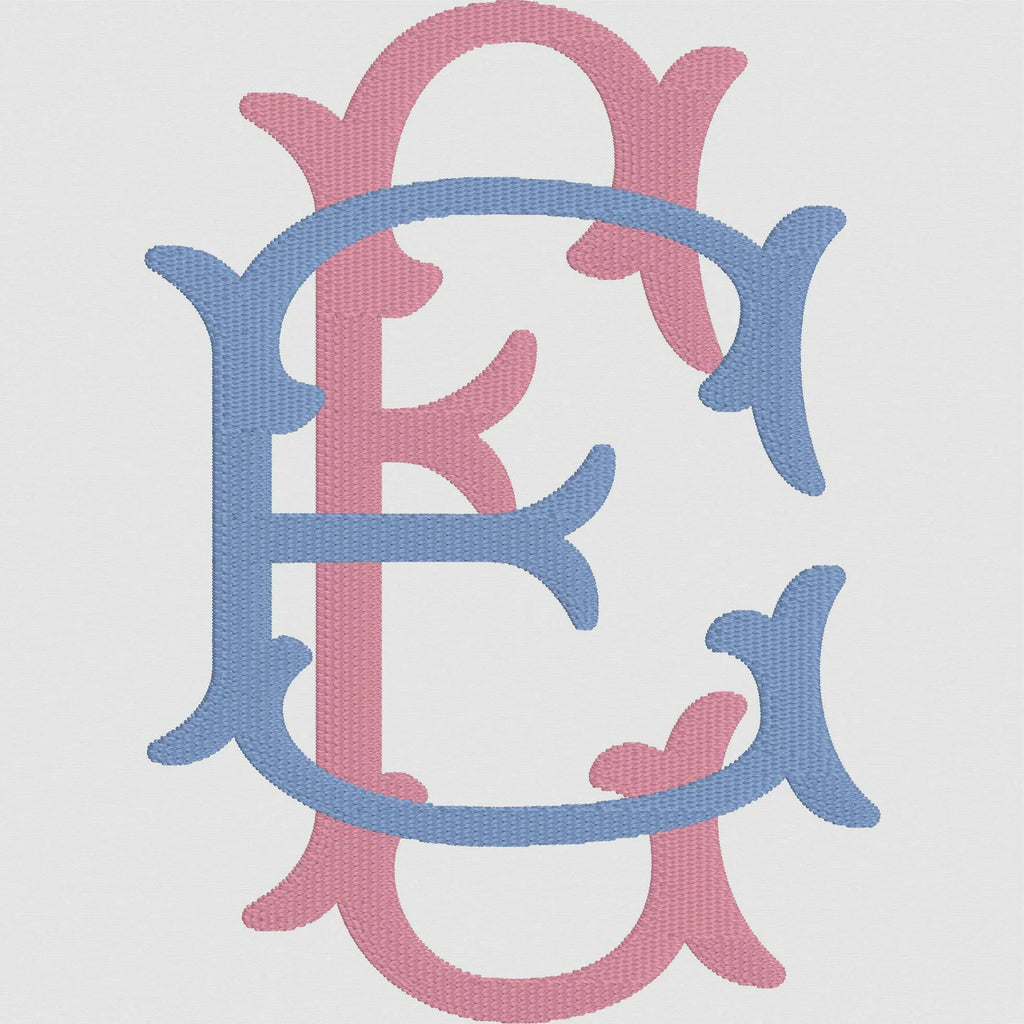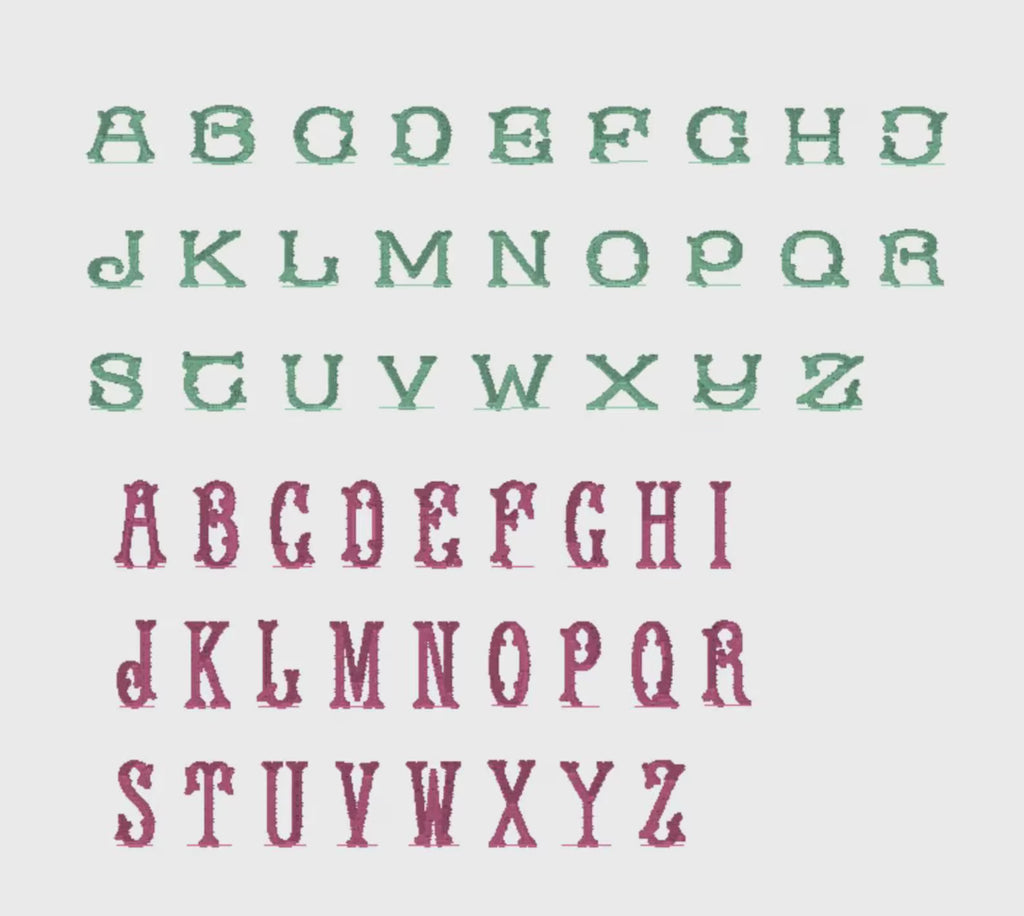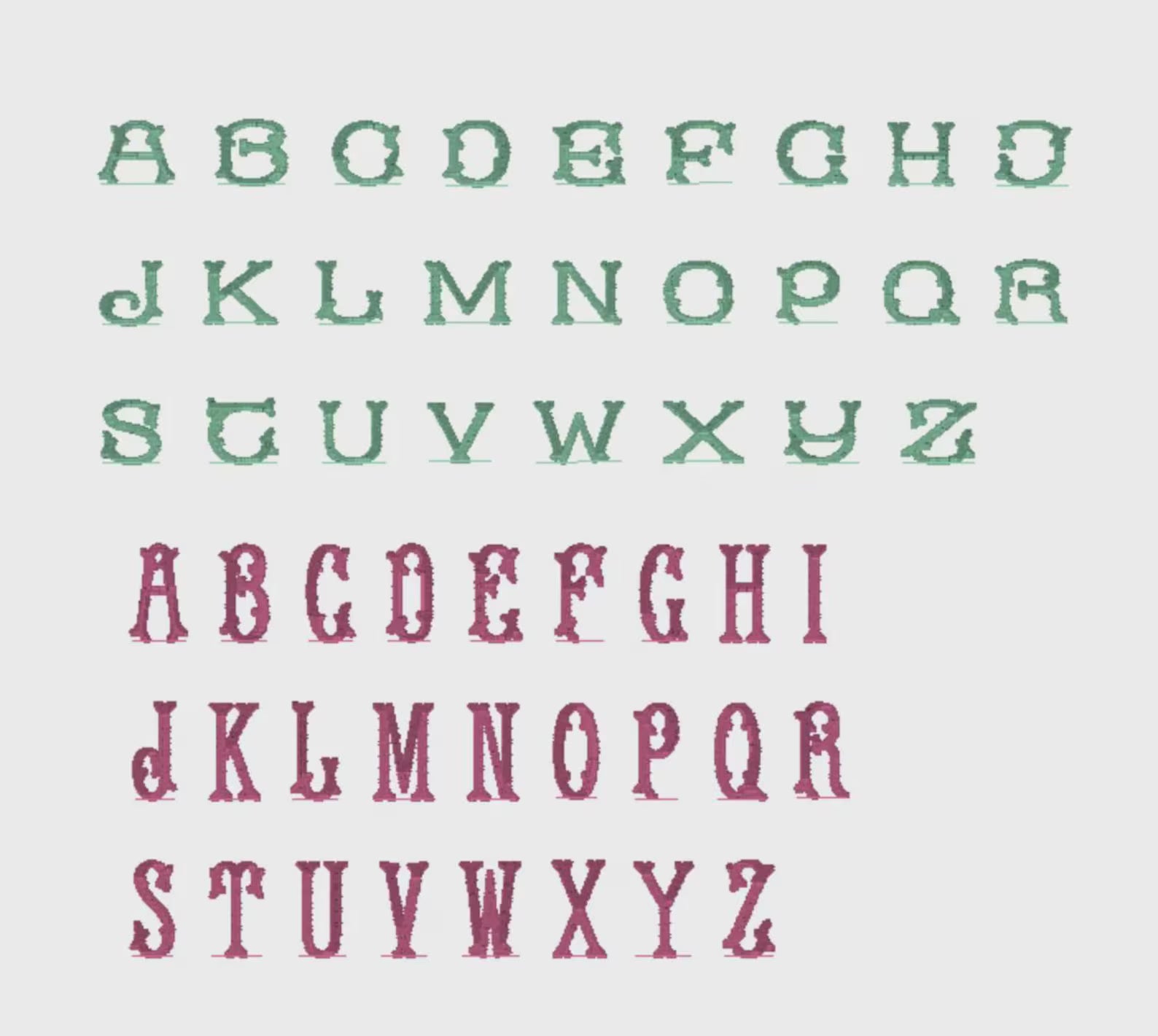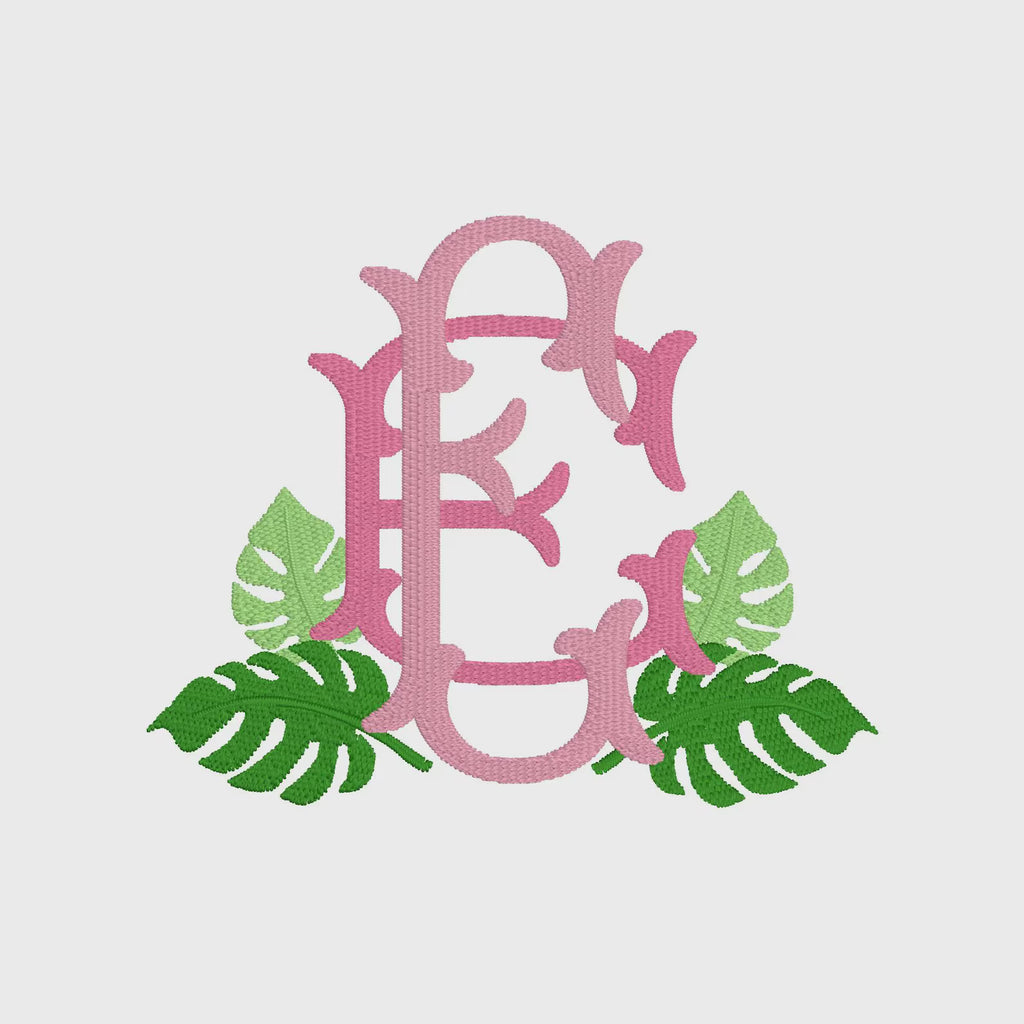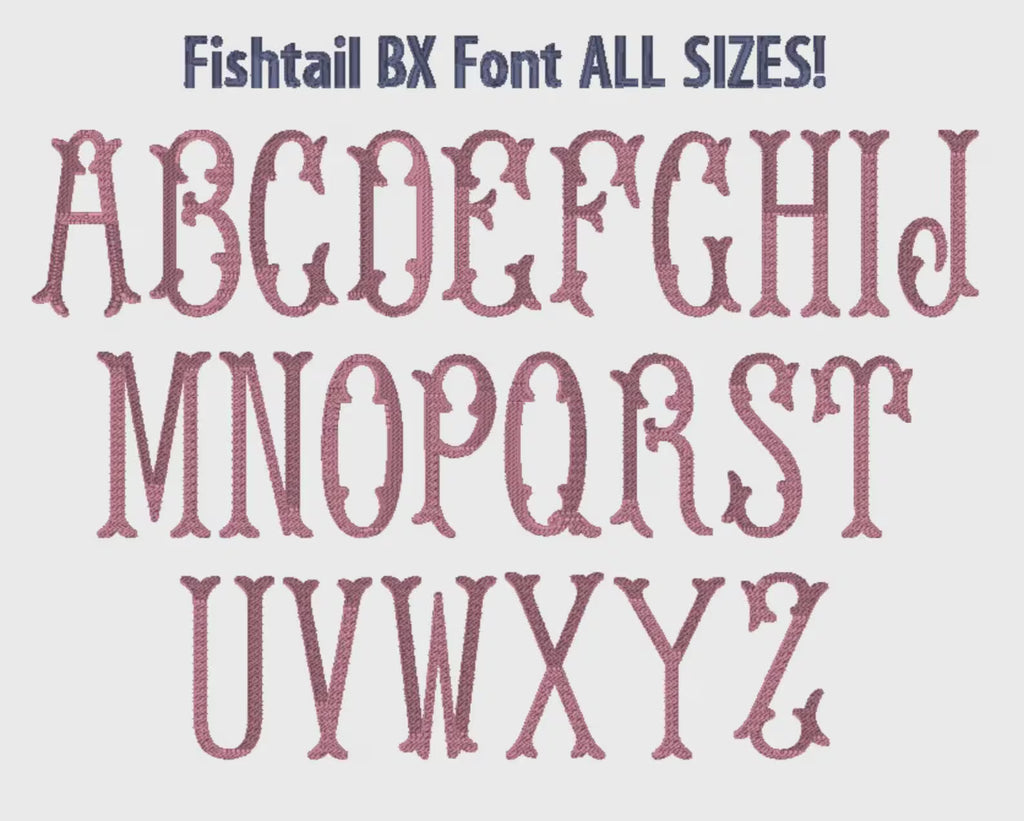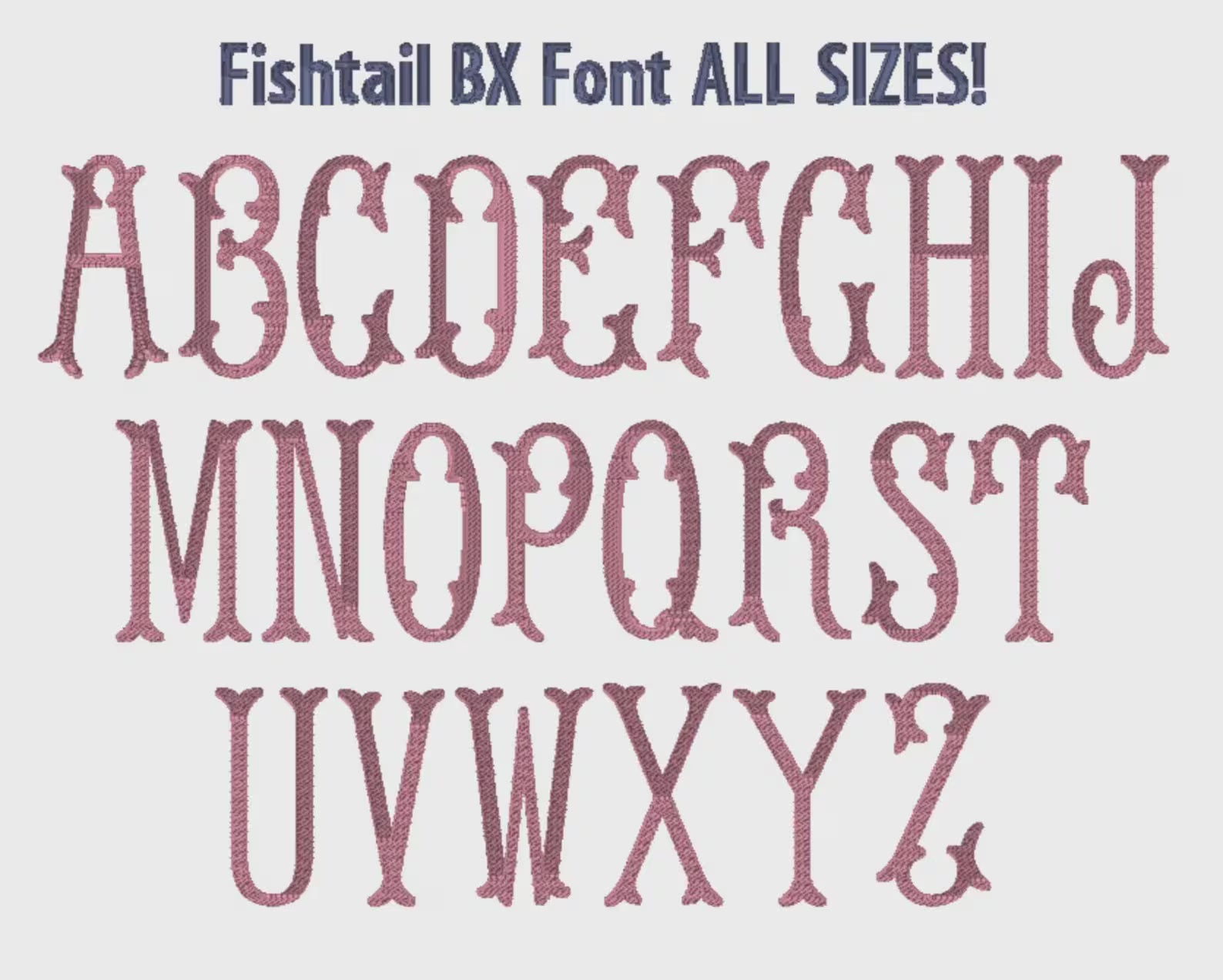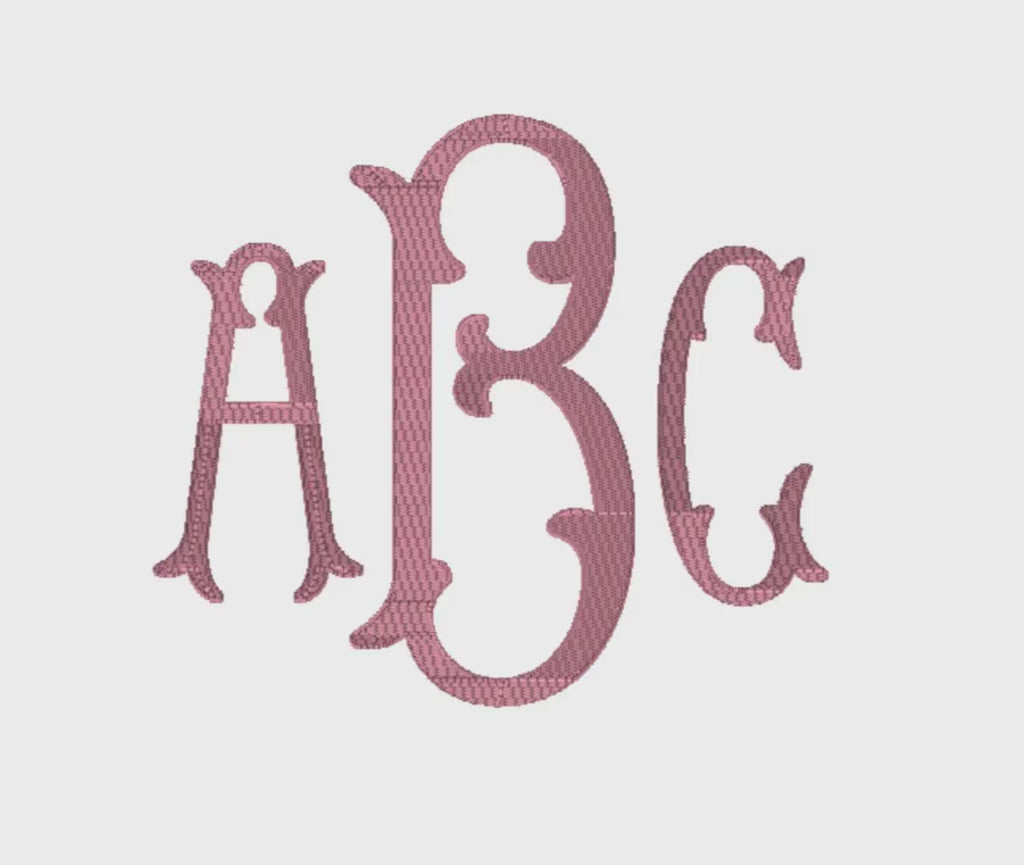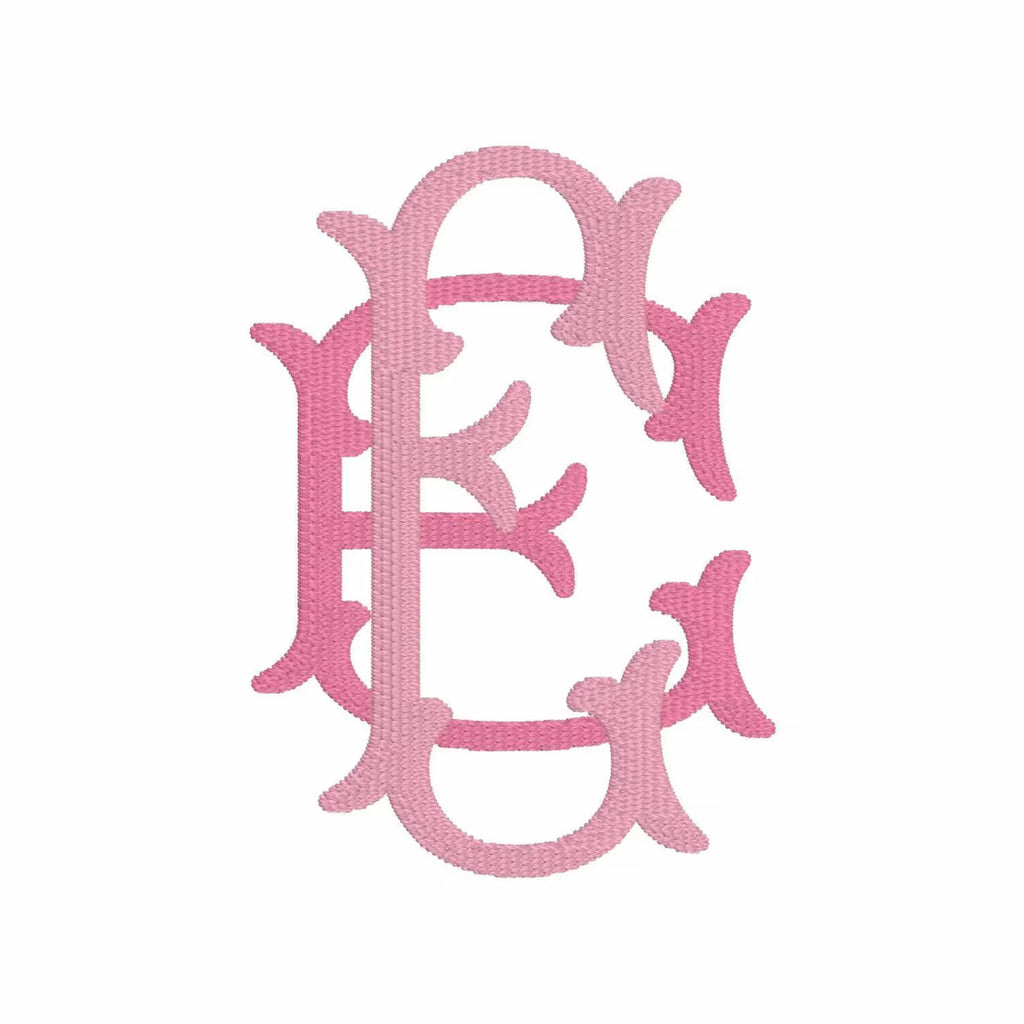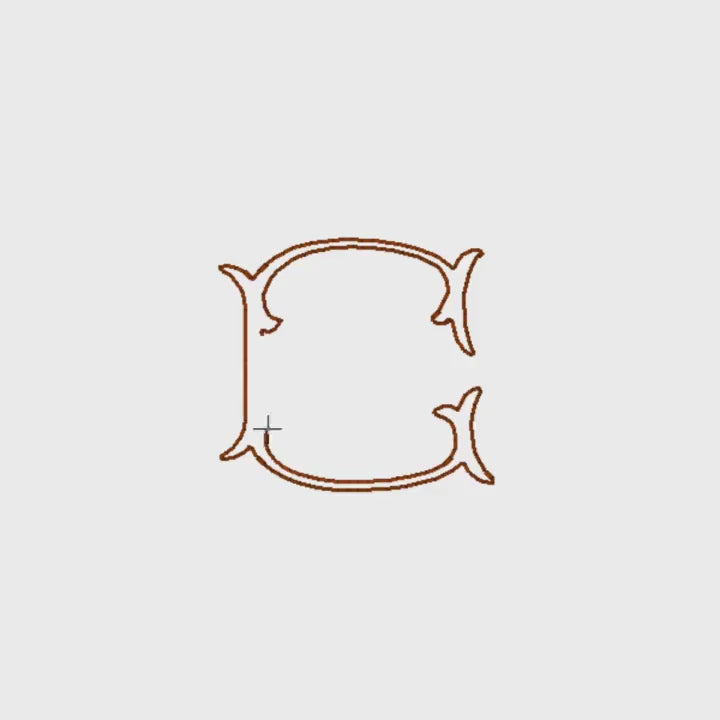
Fishtail Embroidery Font: 52 Letters (2 Letter Styles), 9 Formats + .bx
Fishtail Embroidery Font
Includes 2 Letter Styles for each Letter
"Upper" is approx. 3 7/8", Lower is approx. 2 7/16"
Includes 1 Filled upper and lower case letter.  Shift letters around over and under as you please! Using upper and lower you have the option to create an interlocking 2 letter monogram.